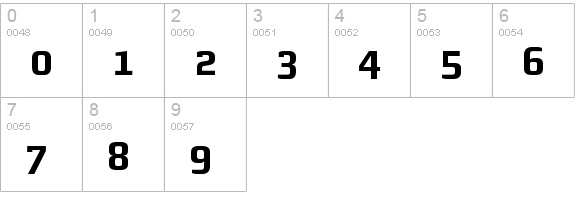
MorganAvec BoldExpert is a stunning and versatile font that exudes confidence and elegance. With its bold and expertly crafted design, this font is perfect for making a statement in any project. The strong and dynamic letterforms of MorganAvec BoldExpert make it ideal for headlines, logos, posters, and more. What makes MorganAvec BoldExpert even more appealing is that it is available for free download at FontsMarket.com. This means that you can easily add this premium font to your collection without any cost. Don't miss the opportunity to enhance your designs with the unique style and impact of MorganAvec BoldExpert. Download it today and elevate your creative projects to new heights.